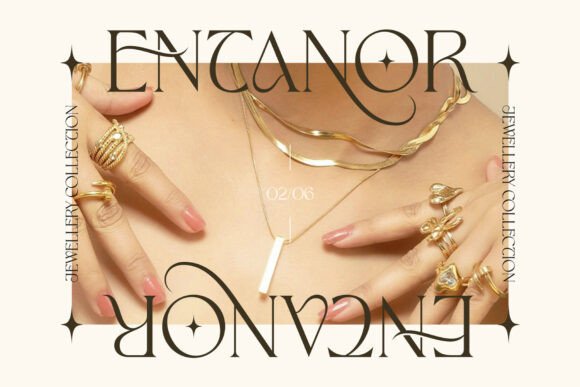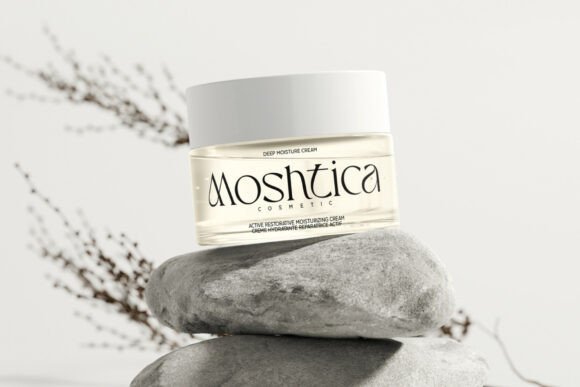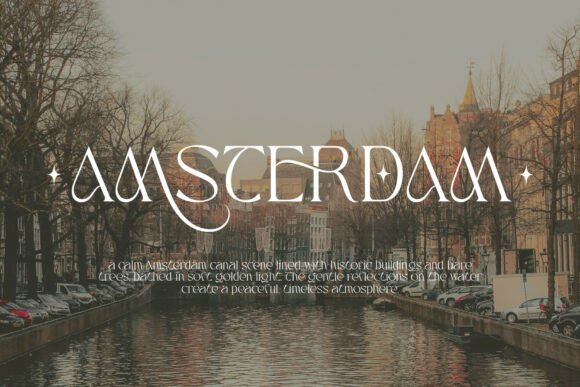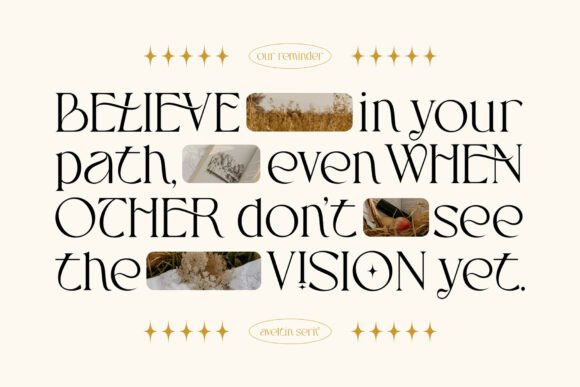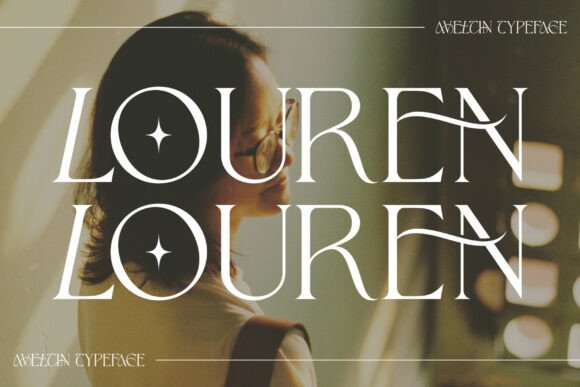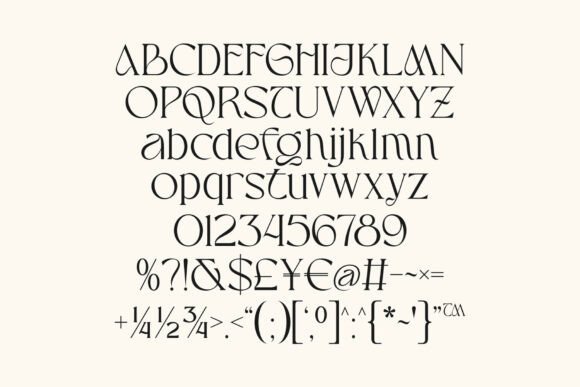
Aveltin Font: Elevate Your Design with Timeless Elegance
In the world of typography, few fonts manage to convey the essence of luxury and sophistication as effectively as Aveltin. This refined and elegant serif font has been crafted to blend timeless elegance with artistic flair, making it an ideal choice for designers and crafters looking to elevate their projects. With its high contrast strokes and graceful curves, Aveltin stands out through its unique letterforms, perfect for luxury branding, editorial layouts, fashion headlines, and sophisticated logo design.
The Art of Elegance: Aveltin’s Design Philosophy
Aveltin’s design is rooted in the principles of classic serif typography, yet it infuses a modern twist that sets it apart from more traditional fonts. The high contrast between thick and thin strokes creates a dramatic effect, adding depth and character to any text. The elegant curves and refined lines of Aveltin’s letterforms exude a sense of sophistication and luxury, making it perfect for high-end branding and editorial projects.
Versatility at Its Best: Uses of Aveltin Font
One of the key strengths of Aveltin is its versatility. This font is not just limited to one specific use case; rather, it can be applied across a wide range of design projects. Here are some of the most popular applications of Aveltin:
- Luxury Branding: Aveltin’s elegant and refined aesthetic makes it an excellent choice for luxury brands looking to convey a sense of high-end quality and sophistication.
- Editorial Layouts: The font’s high contrast strokes and classic serif design make it perfect for editorial layouts, adding a touch of elegance to any publication.
- Fashion Headlines: Aveltin’s artistic flair and sophisticated look make it a popular choice for fashion headlines, helping to create visually stunning and impactful text.
- Sophisticated Logo Design: The unique letterforms of Aveltin make it an excellent choice for logo design, allowing brands to stand out with a distinctive and elegant visual identity.
Why Choose Aveltin Font?
With so many fonts available to designers and crafters, what sets Aveltin apart? Here are a few reasons why Aveltin should be your go-to choice for your next design project:
- Timeless Elegance: Aveltin’s classic design ensures that it will remain relevant for years to come, providing a timeless elegance that won’t go out of style.
- High Versatility: The font’s versatility means it can be used across a wide range of design projects, from luxury branding to editorial layouts.
- Unique Letterforms: Aveltin’s unique letterforms help to create a distinctive visual identity, setting it apart from more traditional serif fonts.
- Easy to Read: Despite its elegant design, Aveltin remains easy to read, making it perfect for body text as well as headlines.
Tips for Using Aveltin Font Effectively
To get the most out of Aveltin, here are a few tips to keep in mind:
- Pair with Sans-Serif Fonts: Aveltin pairs well with sans-serif fonts, creating a striking contrast that adds visual interest to any design.
- Experiment with Font Sizes: Aveltin’s high contrast strokes mean that it looks great at a range of font sizes, from large headlines to smaller body text.
- Use for Headlines and Titles: Aveltin’s elegant design makes it perfect for headlines and titles, helping to create a strong visual impact.
Aveltin font is a powerful tool for designers and crafters looking to elevate their projects with timeless elegance and artistic flair. Its unique letterforms, high contrast strokes, and versatile design make it perfect for a wide range of applications, from luxury branding to editorial layouts. Whether you’re looking to create a sophisticated logo, elegant editorial layout, or striking fashion headline, Aveltin is the perfect choice. With its easy readability, high versatility, and classic design, Aveltin is sure to become a staple in any designer’s toolkit.